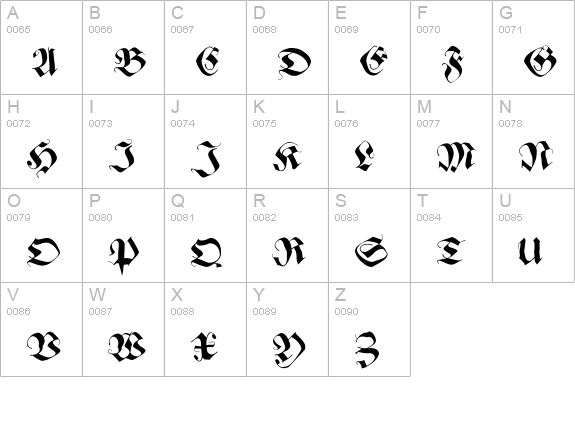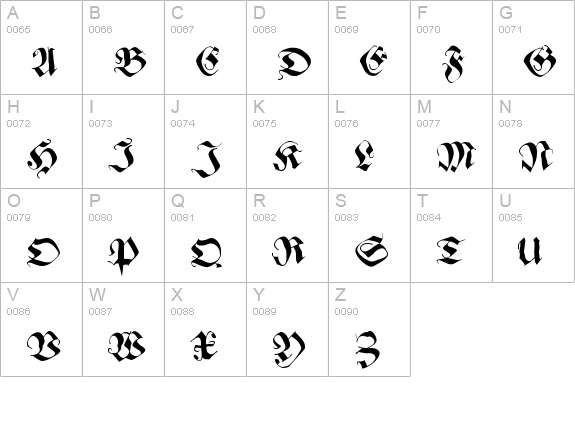
ZenFraxFreestyle Font Details
Introducing ZenFraxFreestyle font - a unique and modern typeface designed to bring a sense of creativity and freedom to your projects. This font features a dynamic blend of flowing lines and sleek curves, creating a visually appealing aesthetic that is perfect for a wide range of design applications. With its versatile style and elegant appearance, ZenFraxFreestyle font is the perfect choice for branding, logos, headlines, posters, and more. Whether you're looking to add a touch of sophistication to your designs or create a bold statement, this font has you covered. The best part? ZenFraxFreestyle font is available for free download exclusively at FontsMarket.com. So go ahead, unleash your creativity and elevate your designs with this stunning and stylish font today!